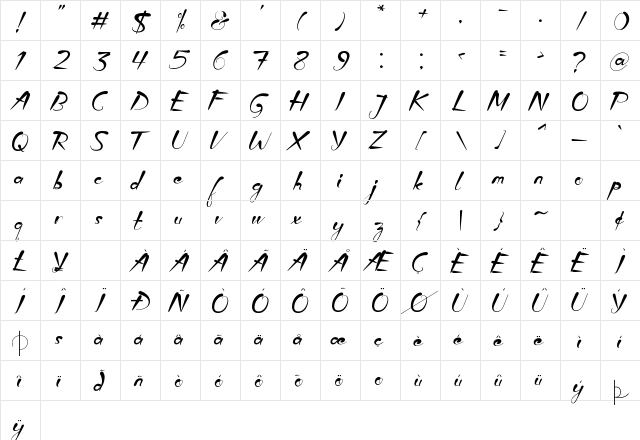
Scary Night Regular
| Foundry | Putracetol Studio |
| Designer | Putra Novembria Candra Kusuma |
Design Context for Scary Night Typeface
Scary Night leans into the macabre with letterforms designed to disturb and intrigue in equal measure.
Perfect for anything that needs to unsettle — game titles, horror branding, and macabre invitations.
Font Pairing: Pair with a clean neutral sans-serif for body copy to let Scary Night's character lead without overwhelming the composition.
Pro Tip: Use Scary Night at larger display sizes for maximum impact. Consider generous tracking to let the disturbing character of each letterform breathe.